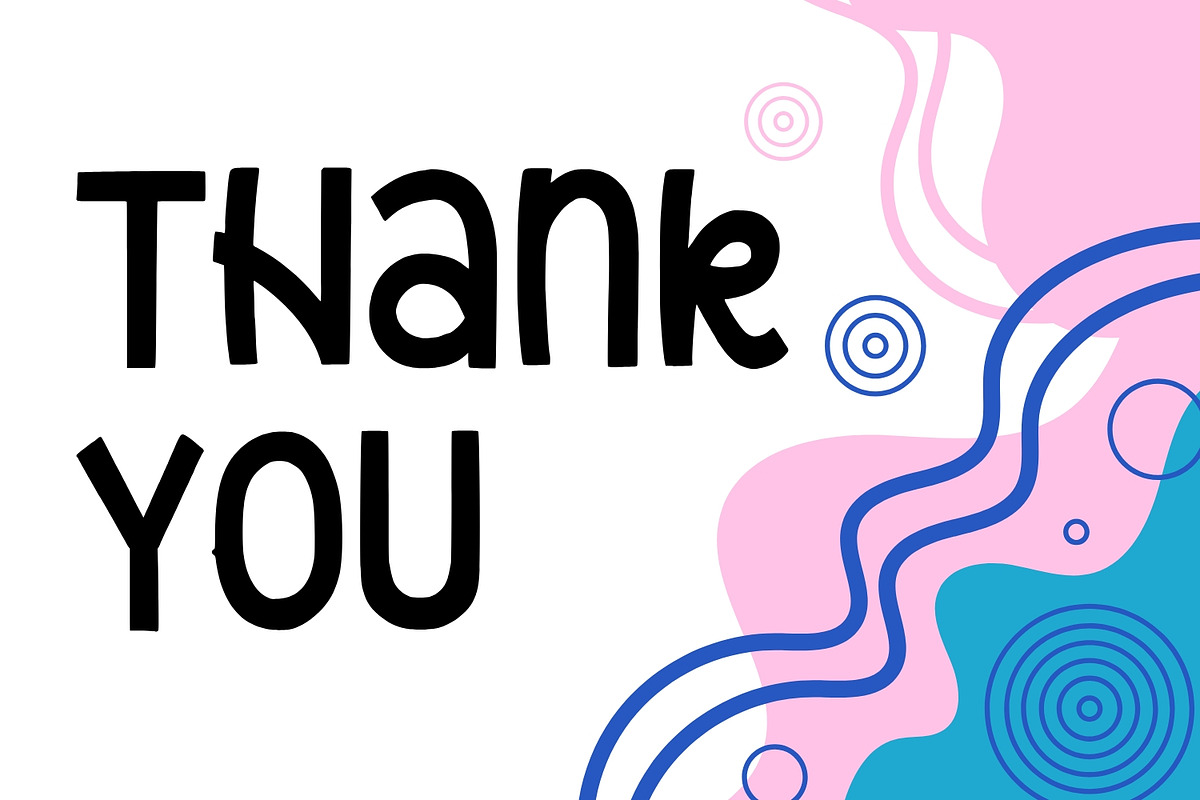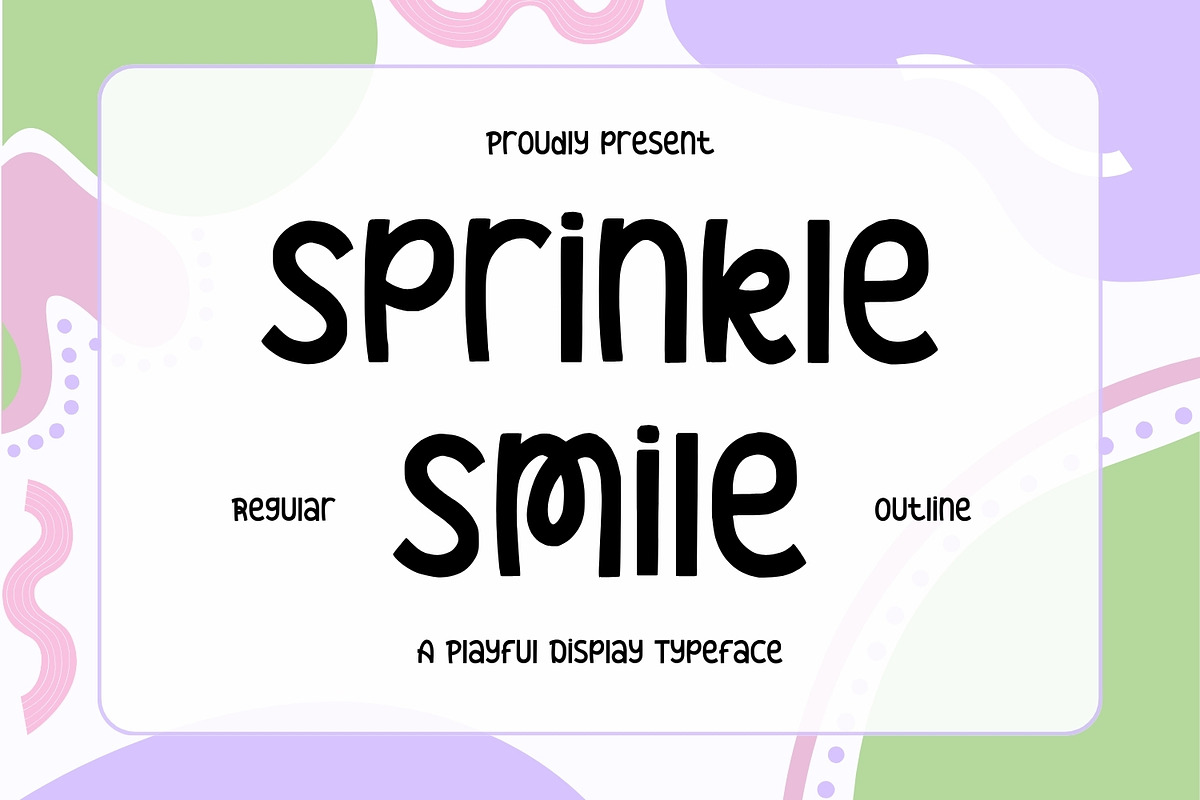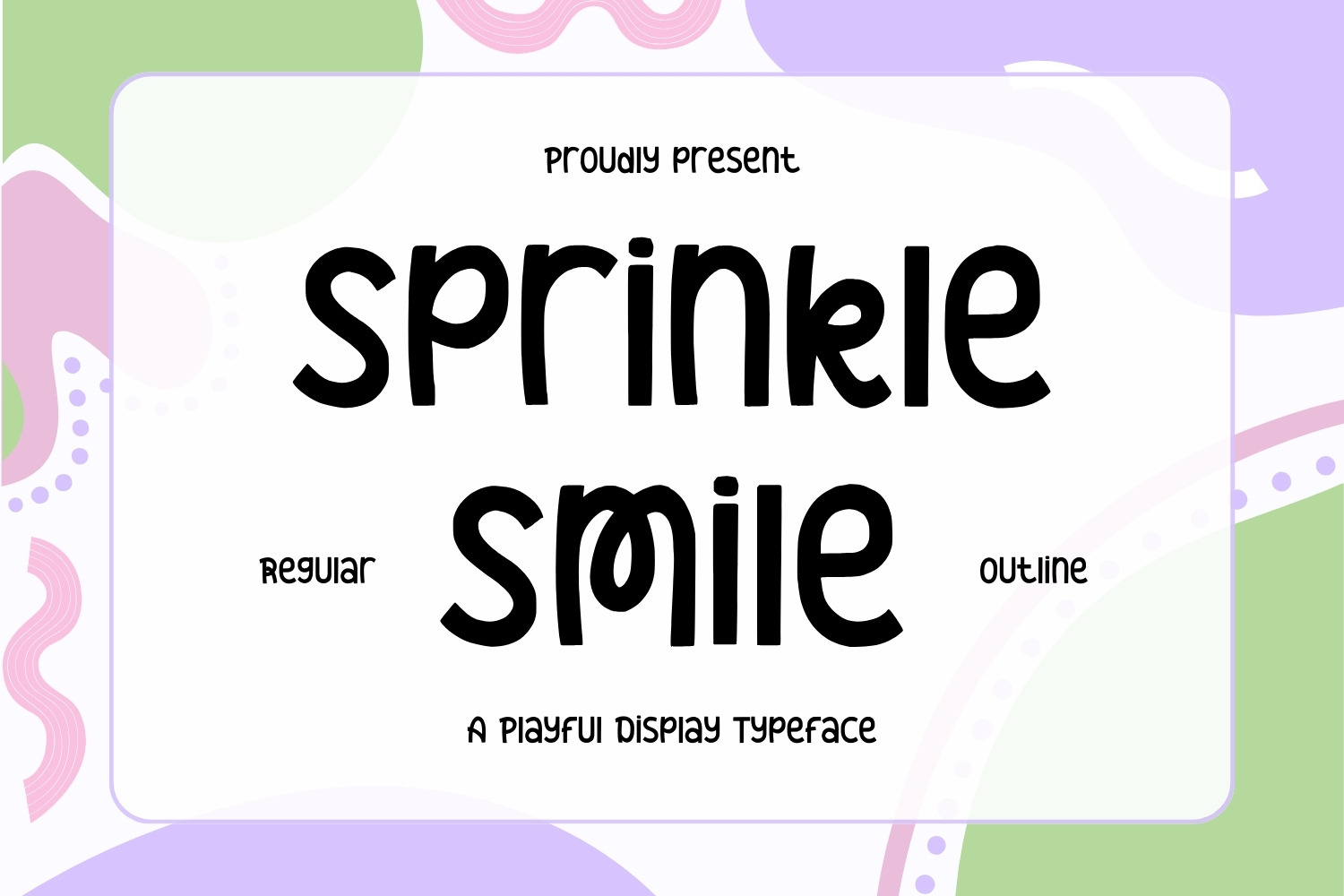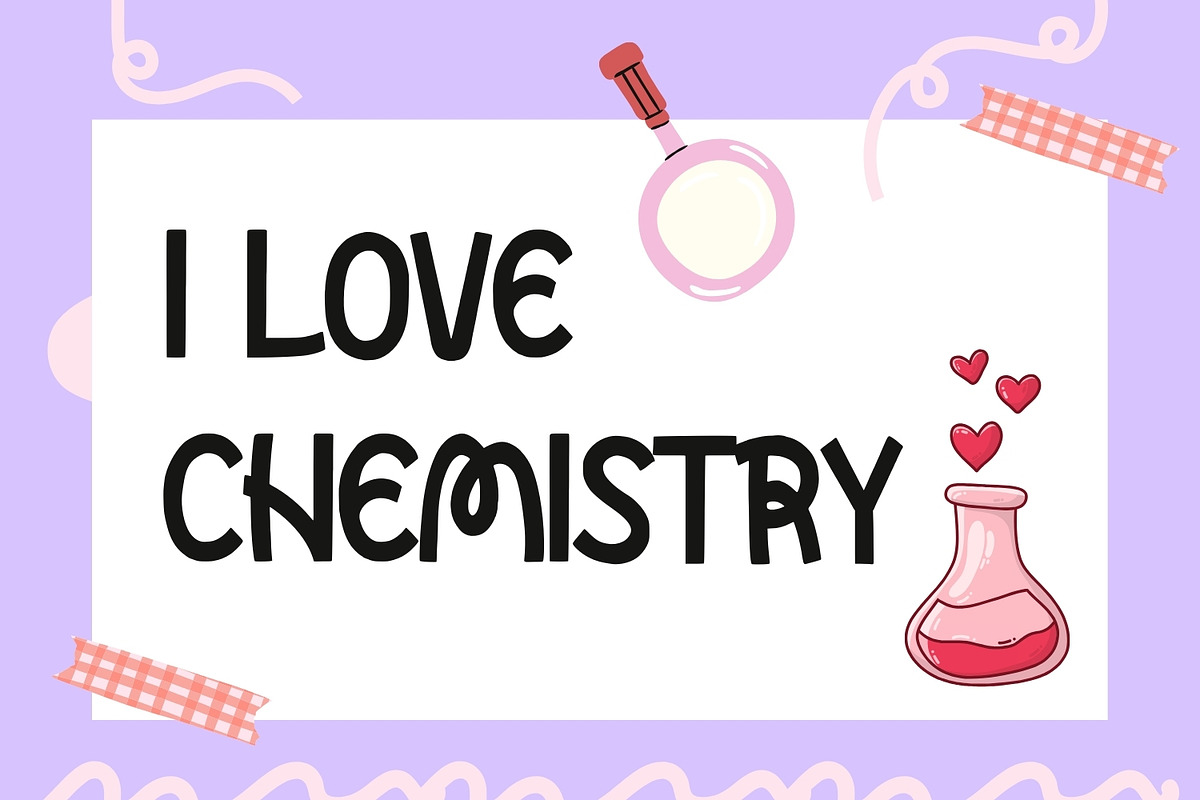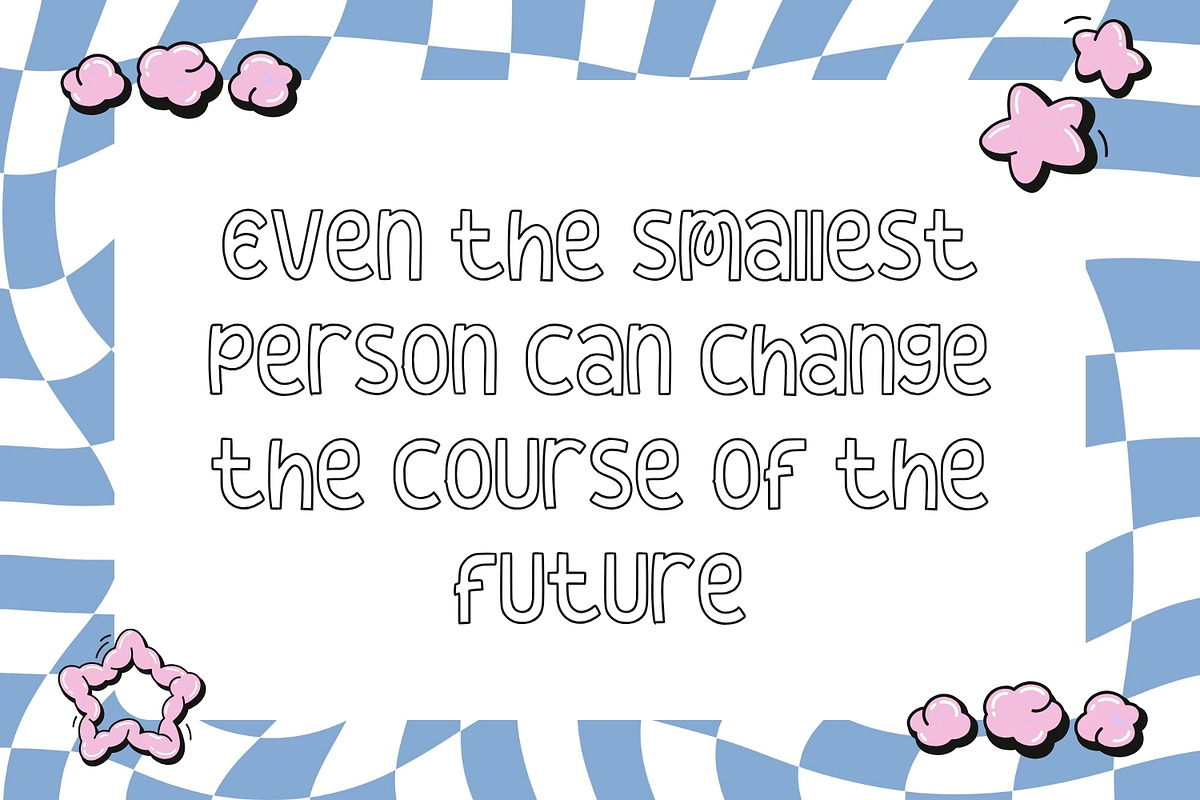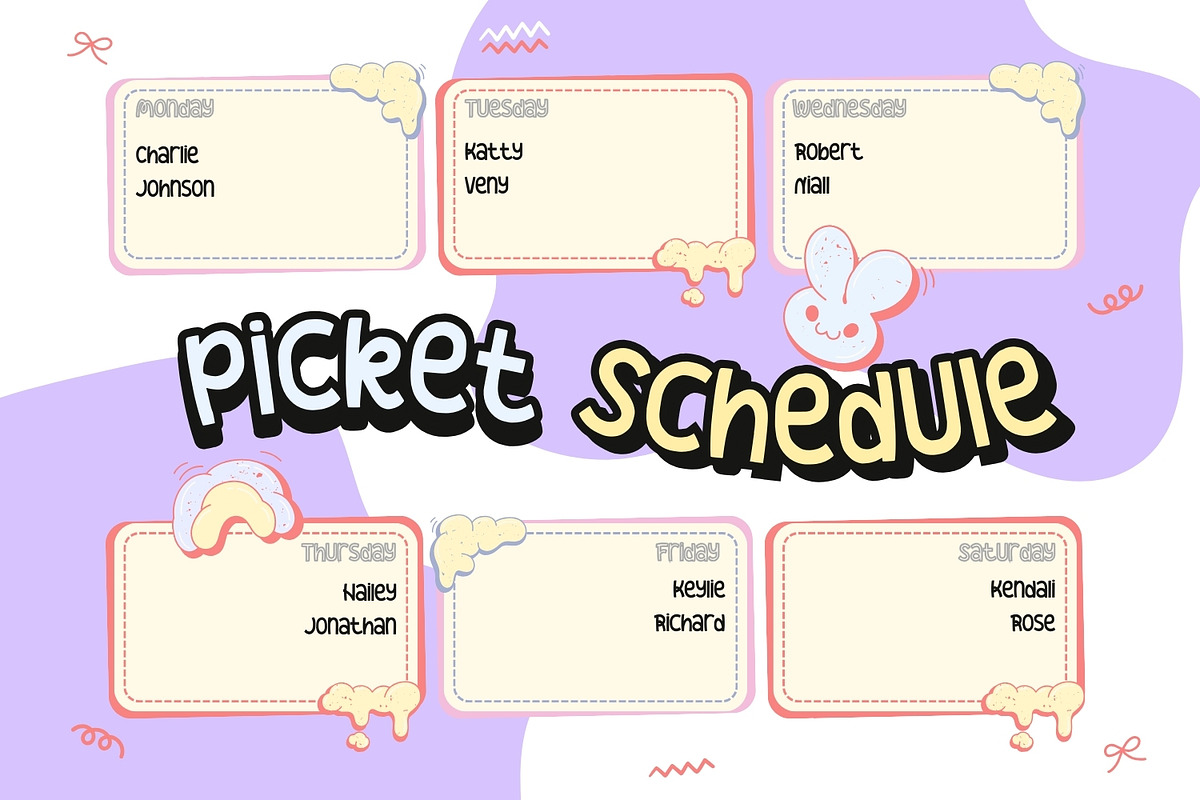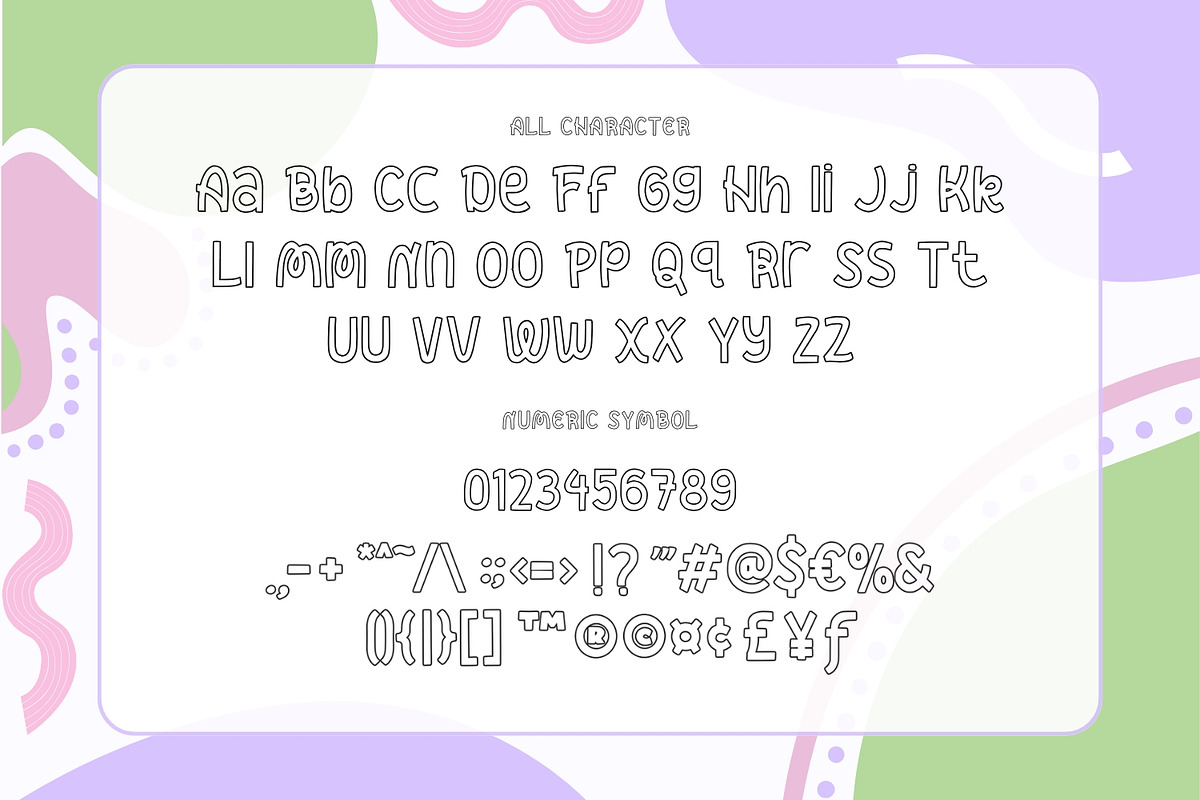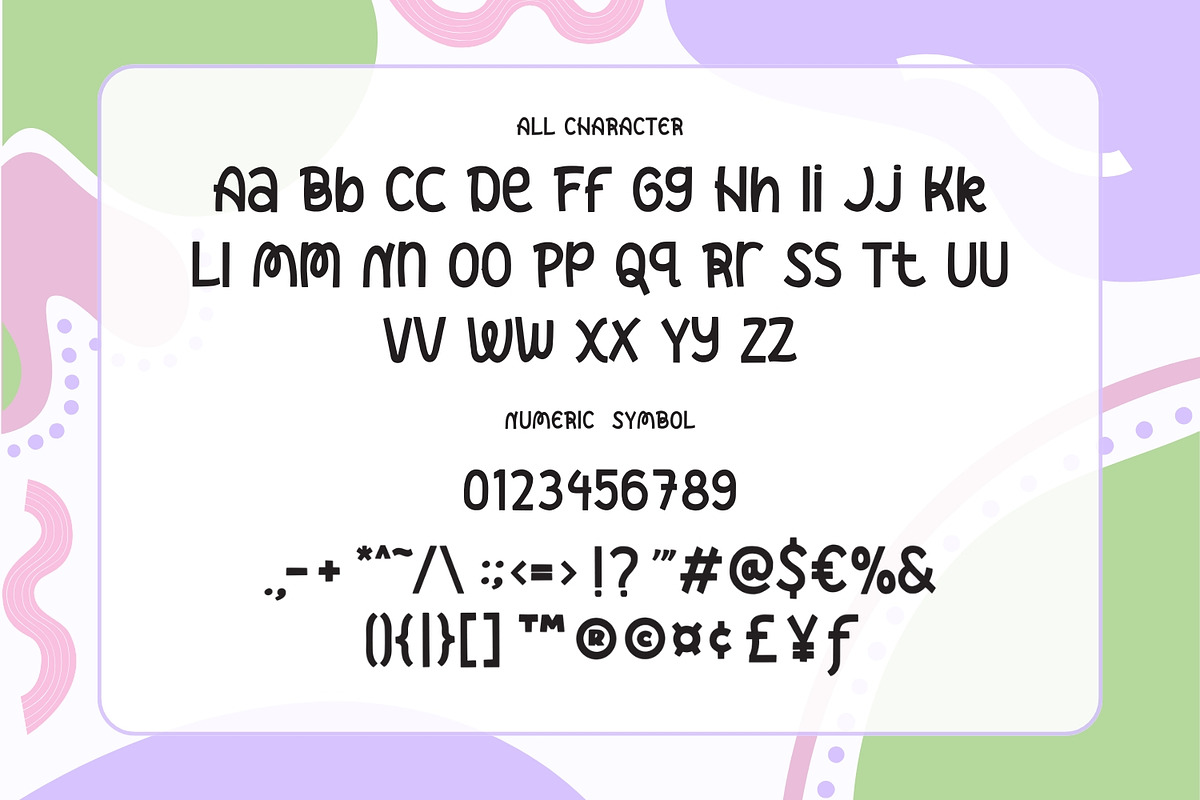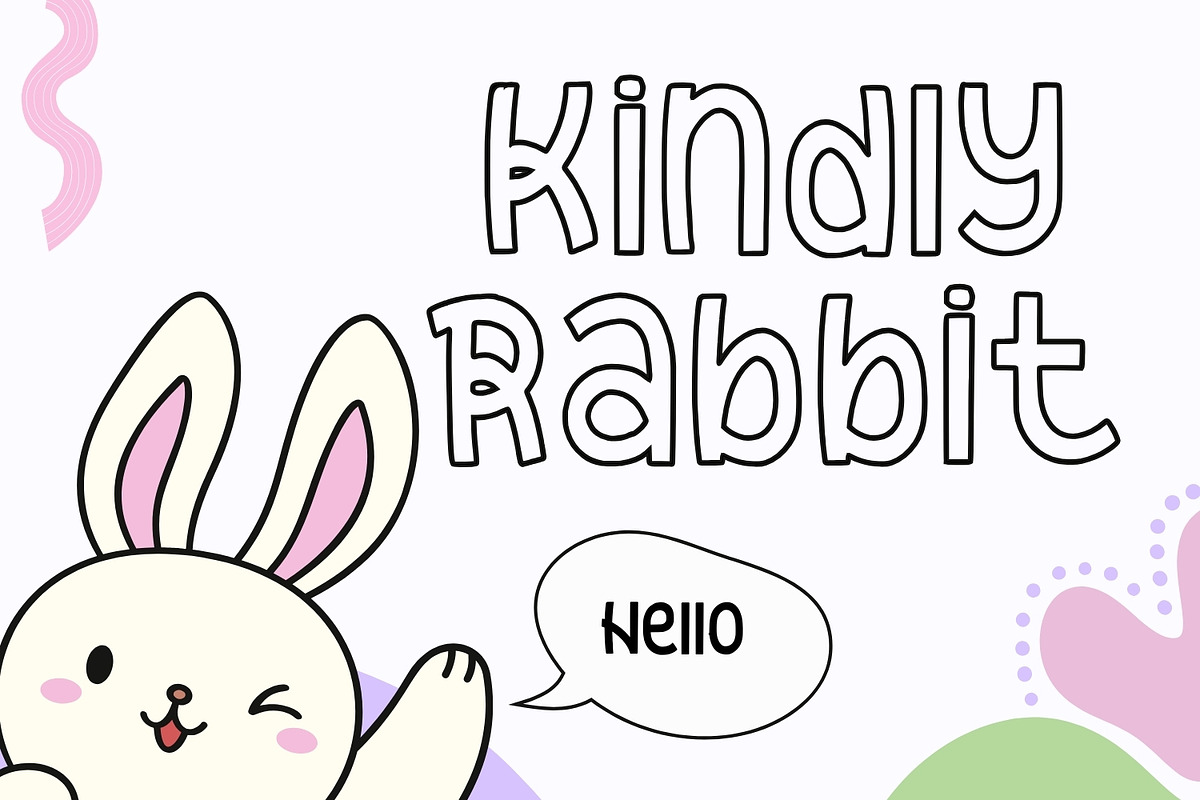
Sprinkle Smiles - Playful Type Font
Sprinkle Smiles - Playful Type Font contains a lowercase, uppercase, symbol, and also supports multi-language. There’s a lot of ligature in this font. Sprinkle Smiles - Playful Type Font also comes with ligatures, stylistic alternates and many more. this font suitable for fashion, branding, catalog and other design that you want.